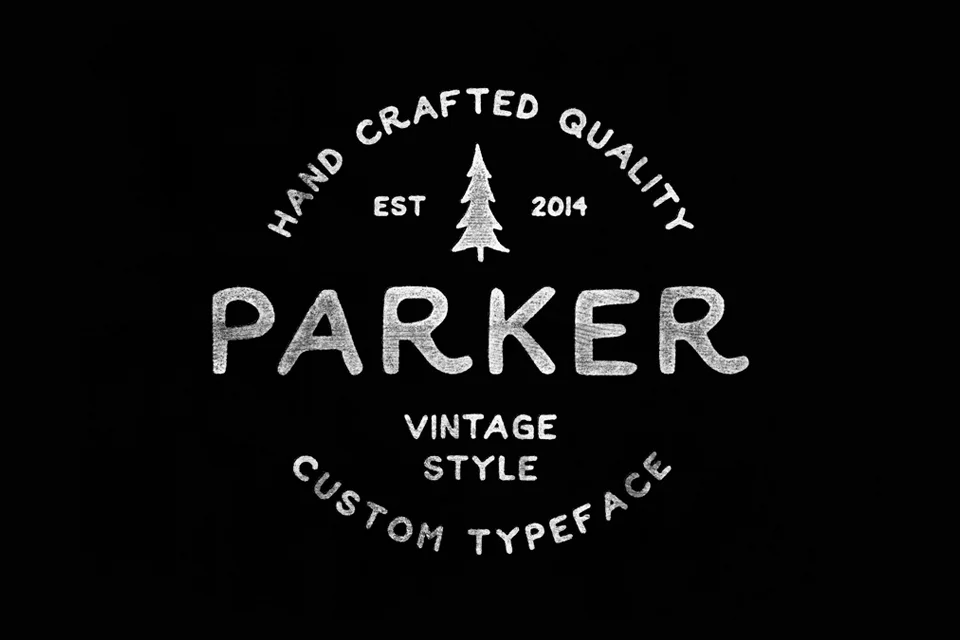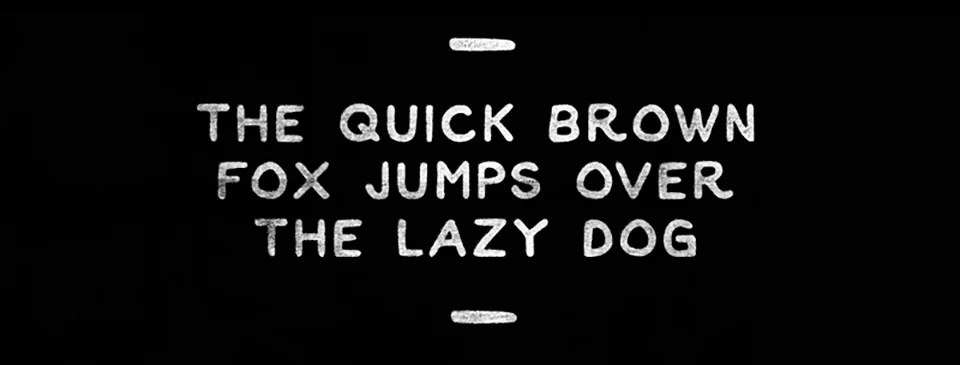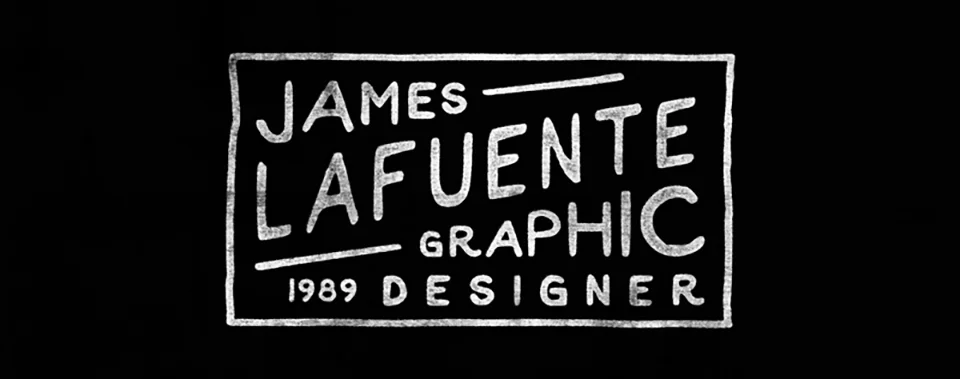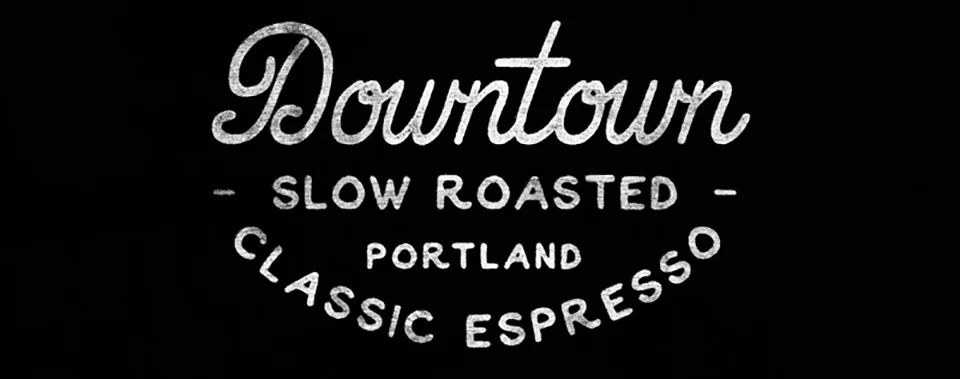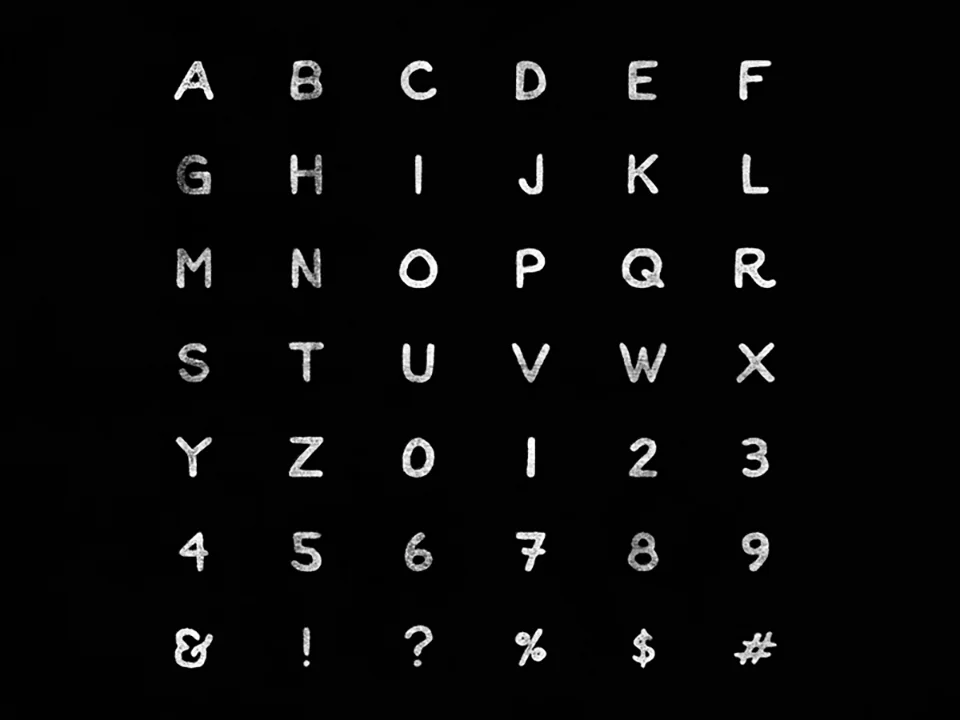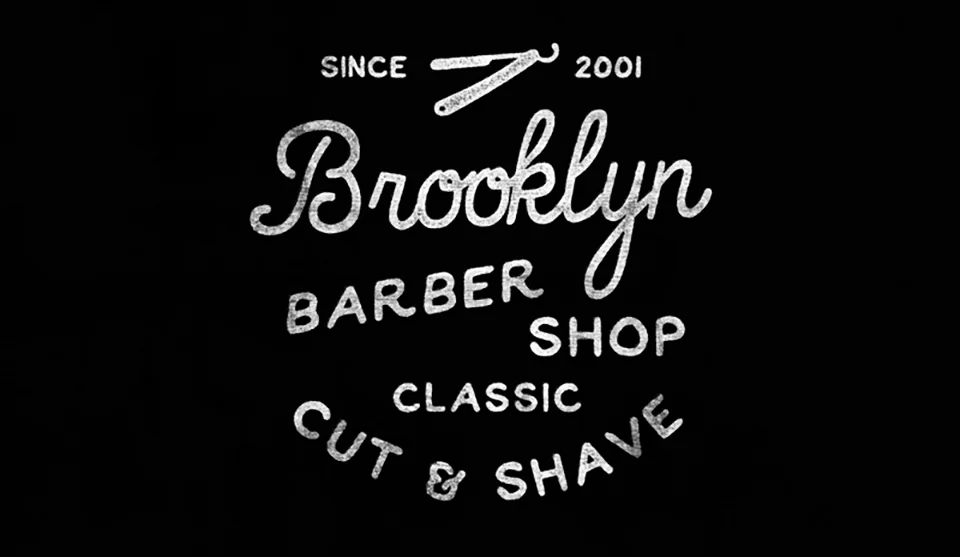
Parker Font
Parker Font is a beautifully crafted, vintage-inspired typeface designed by James Lafuente. Its elegant, handmade style makes it an excellent choice for various design projects, including T-shirts, logos, posters, and other vintage-themed materials. The font features unique textures and ligatures that enhance its visual appeal, making it suitable for both personal and professional use. While Parker is available for free for personal projects, a commercial license must be purchased for any business-related applications. This font is perfect for designers seeking to add a touch of nostalgia and sophistication to their work.
Features of Parker Font:
- Style: Vintage-inspired display font
- Character Set: Includes A-Z, 0-9, and basic symbols
- Design: Handmade with unique textures and ligatures
- Usage: Ideal for T-shirts, logos, posters, and various design projects
FAQs about Parker Free Font:
What type of font is Parker?
Parker is a vintage-inspired display typeface, perfect for both small and large screen projects.
Can I use Parker for my logo?
Absolutely! Parker is suitable for logos and all graphic design projects.